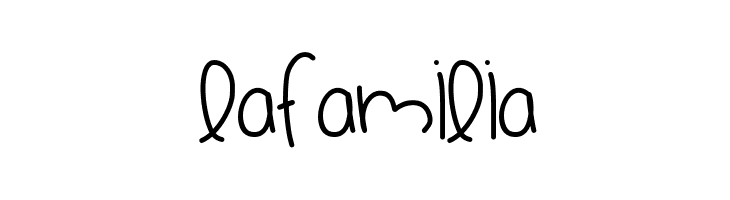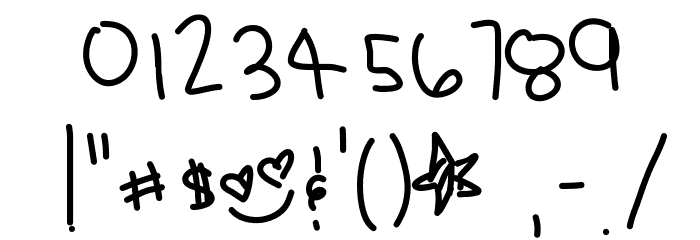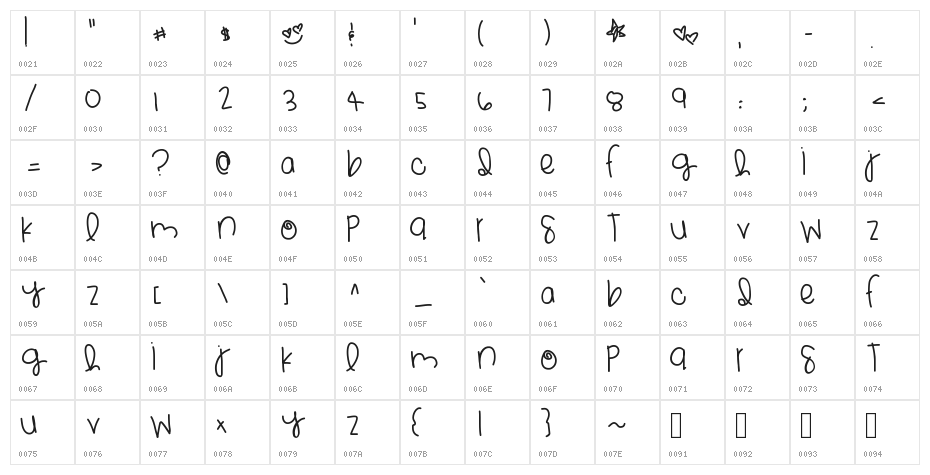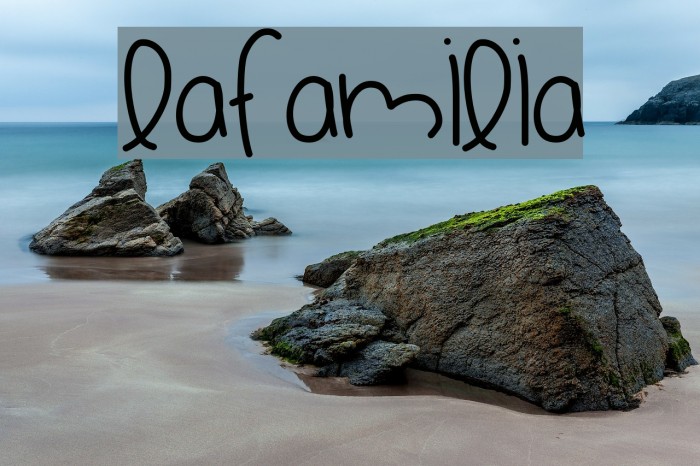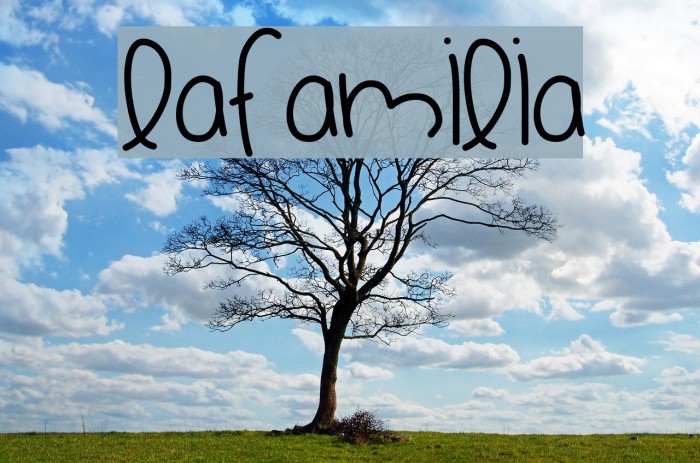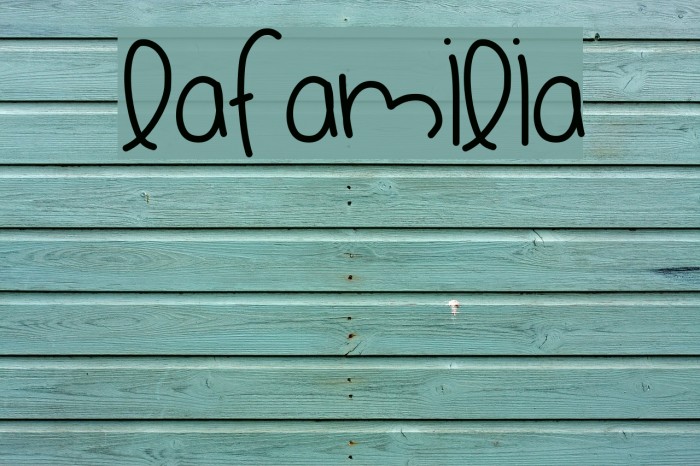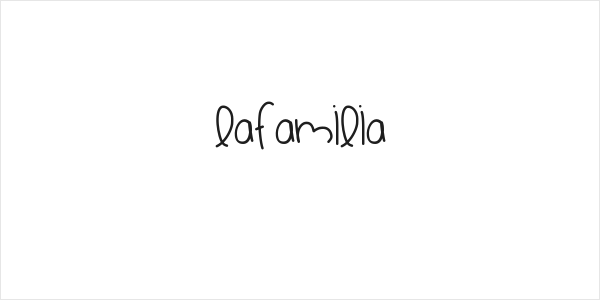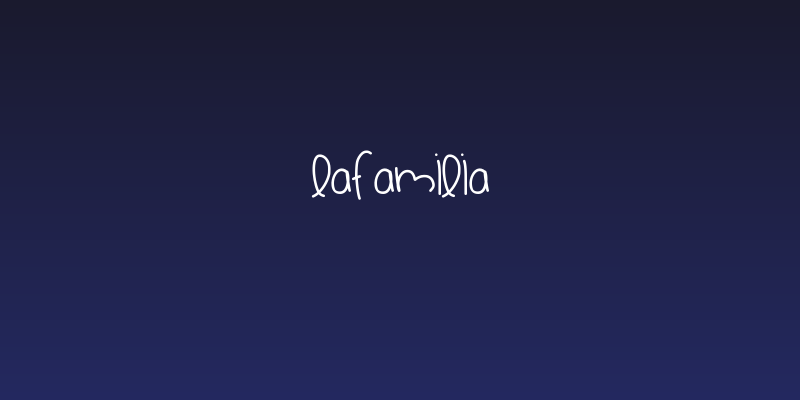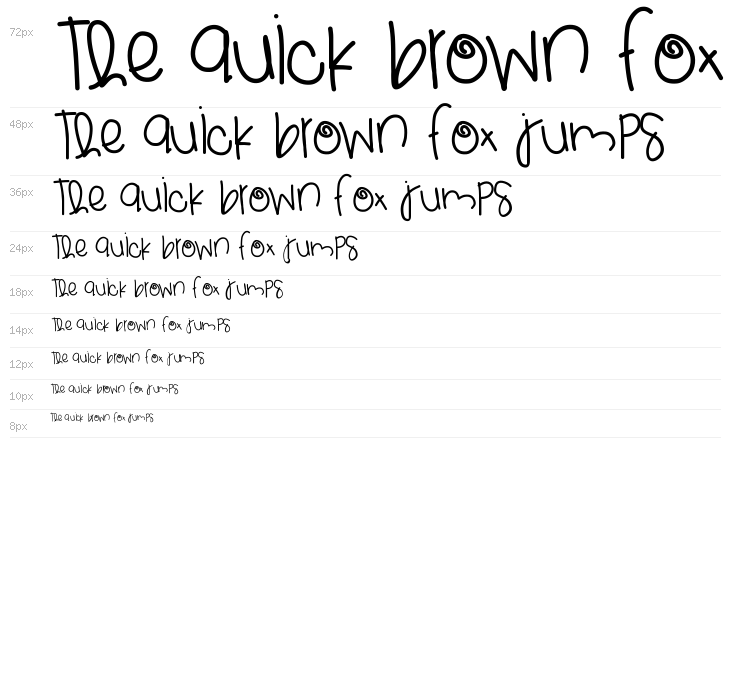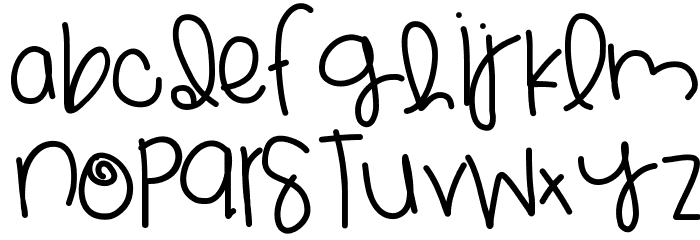
LaFamilia Font
LaFamilia Description
This playful and whimsical font features a handwritten style with a casual and friendly appearance. The characters are rounded and slightly irregular, giving it a personal touch that mimics natural handwriting. The strokes are consistent in thickness, providing a uniform look across all characters. The font includes both uppercase and lowercase letters, numbers, and a variety of special characters, making it versatile for different uses. Its informal style makes it perfect for projects that require a personal or creative flair.
| Use Case | Logos, Invitations, Personal projects |
| Proposed Projects | Ideal for greeting cards, children's books, personal blogs, and creative branding projects. |